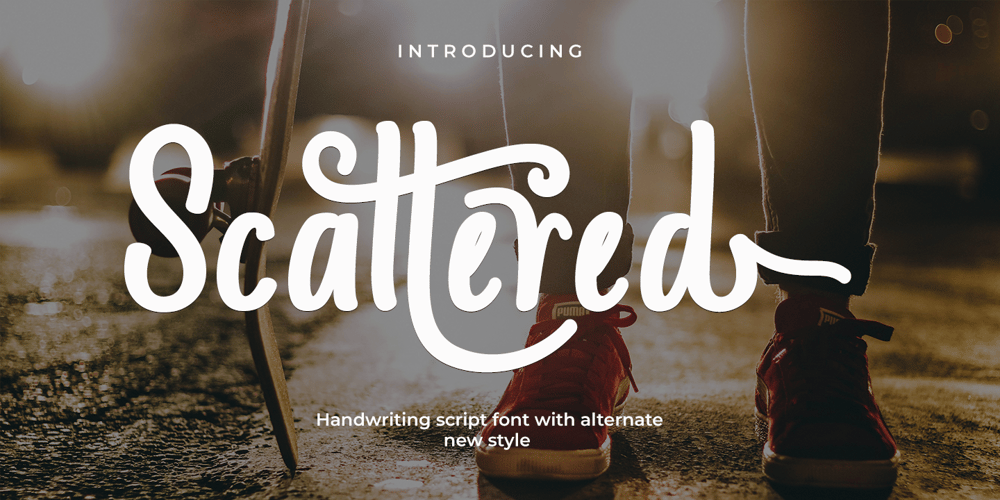
Scattered Font Family was designed by Muhammad Zaini and published by Cocodesign. Scattered contains 1 styles and family package options. Hello all.!!Scattered Modern Calligraphy. This font was designed by handwriting, and it has a modern and unique forms of calligraphy, the writing style is very natural.The Features of this fonts is; * Standart ligatures * Stylistic Alternates * Contextual Alternates * Stylistic sets